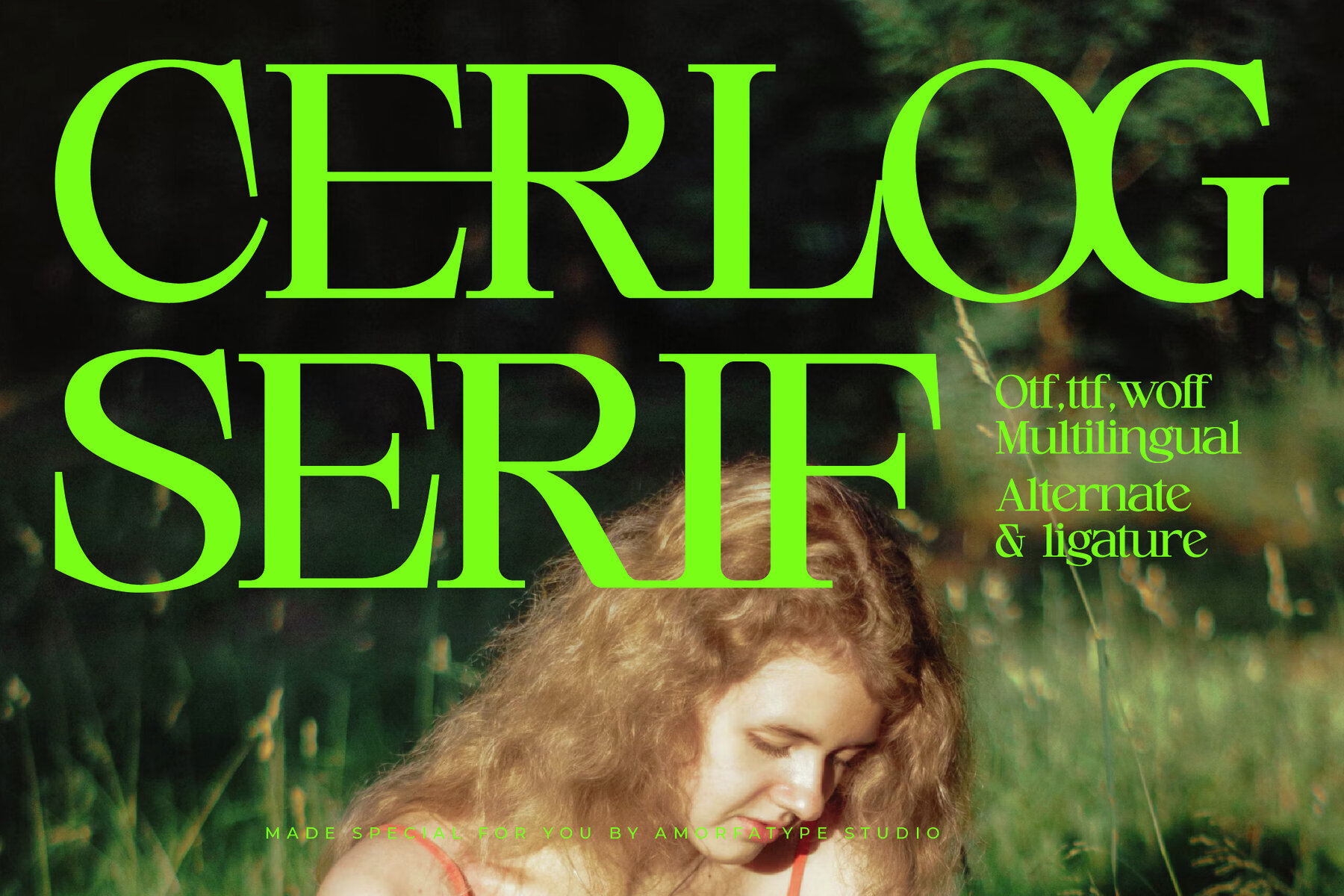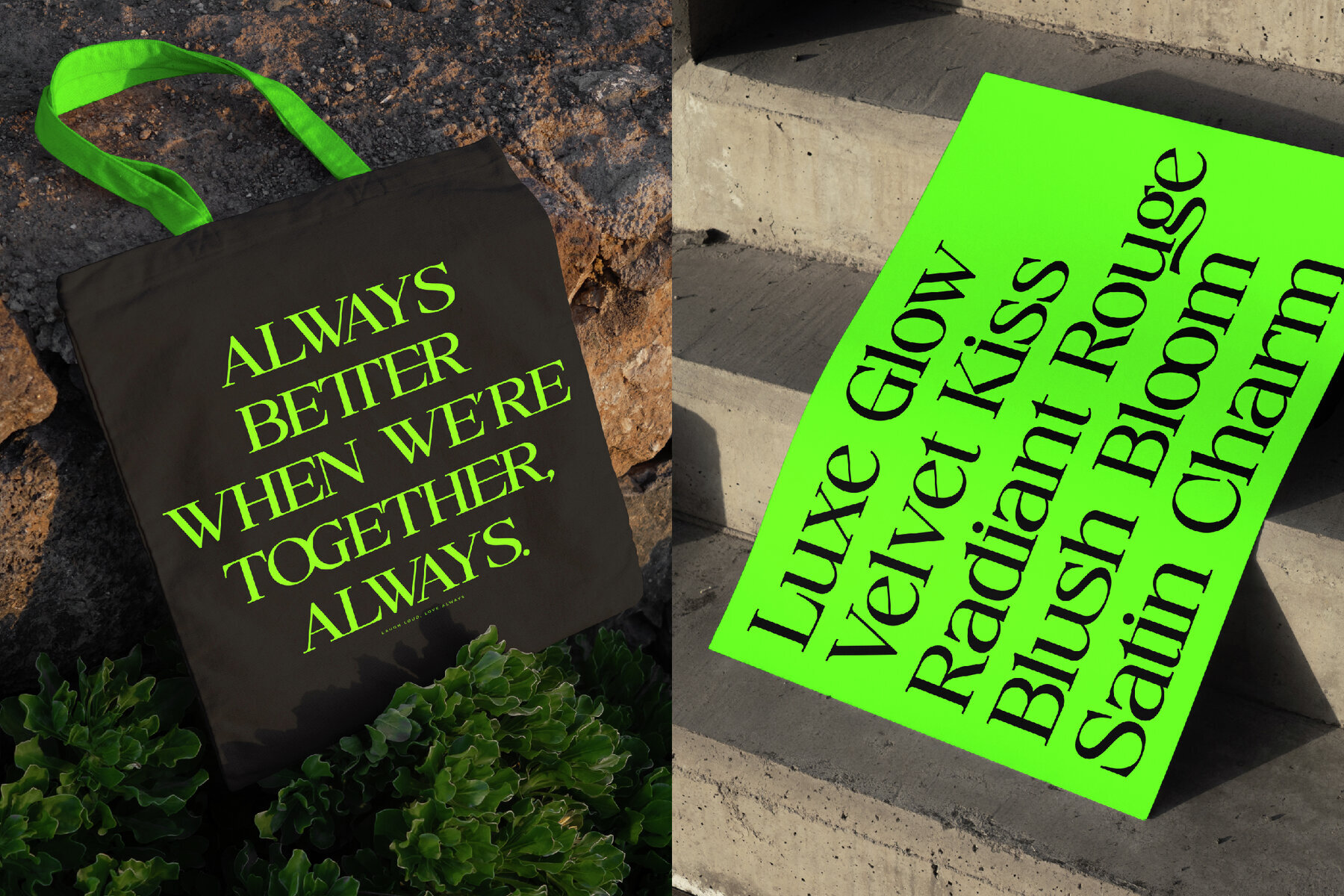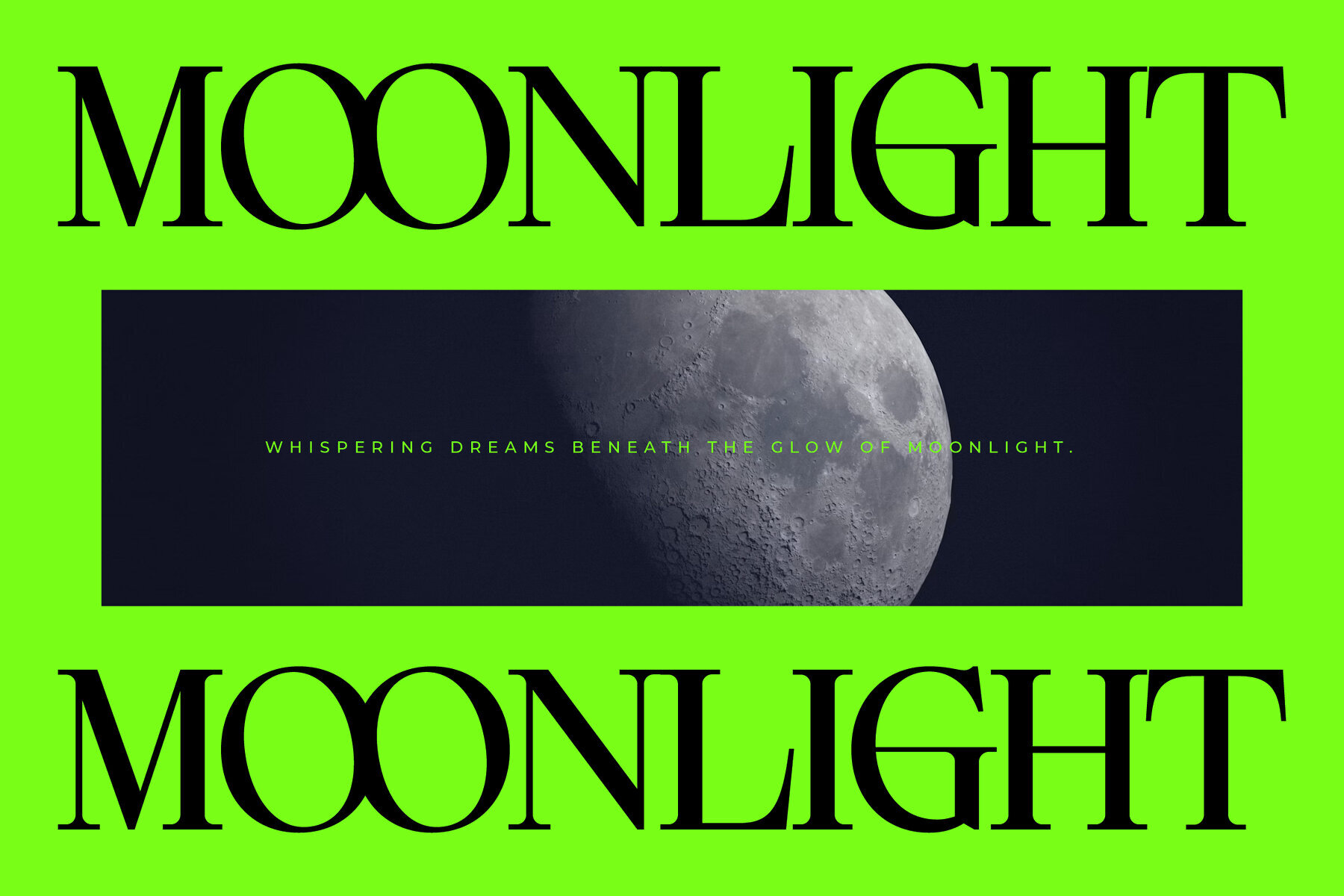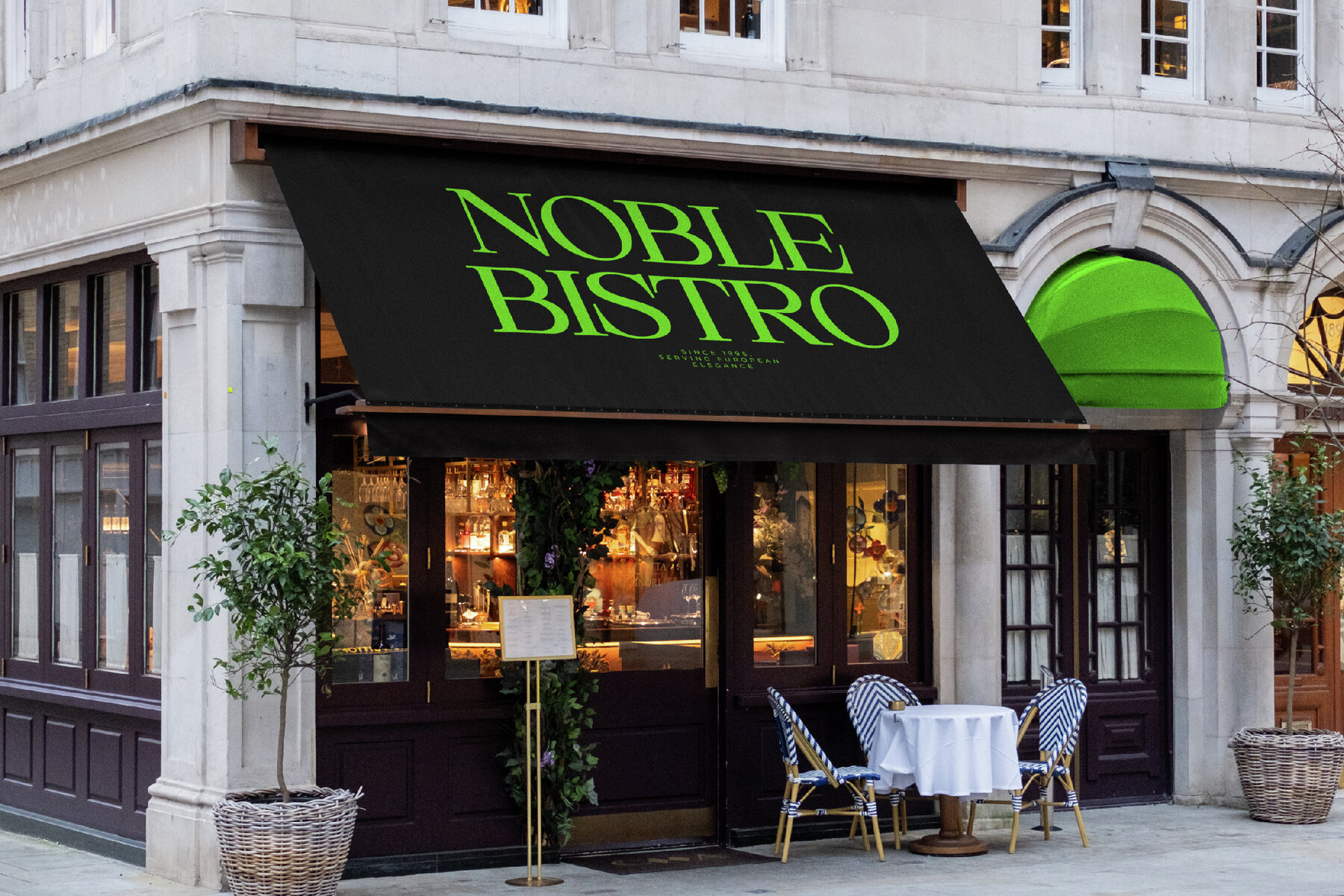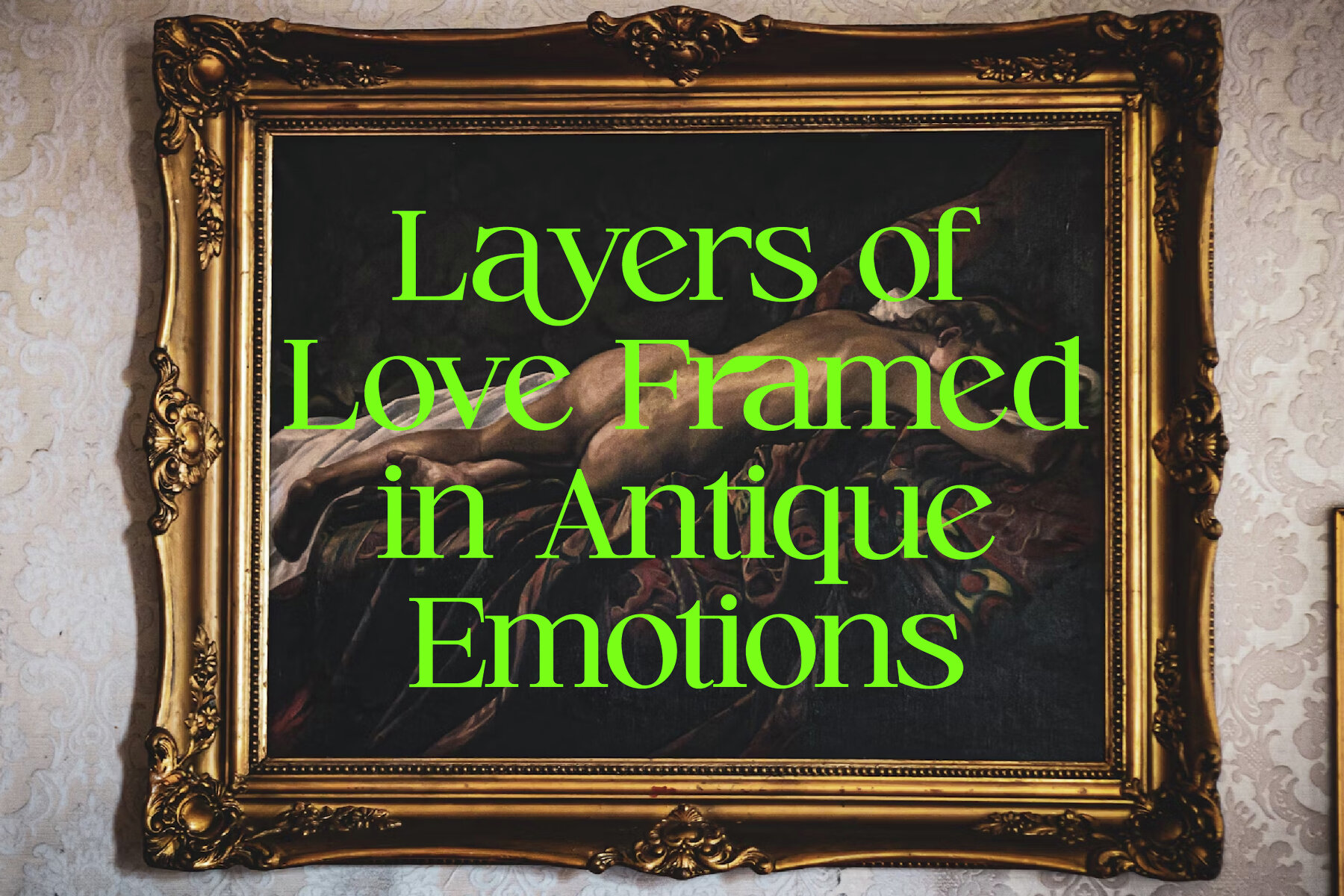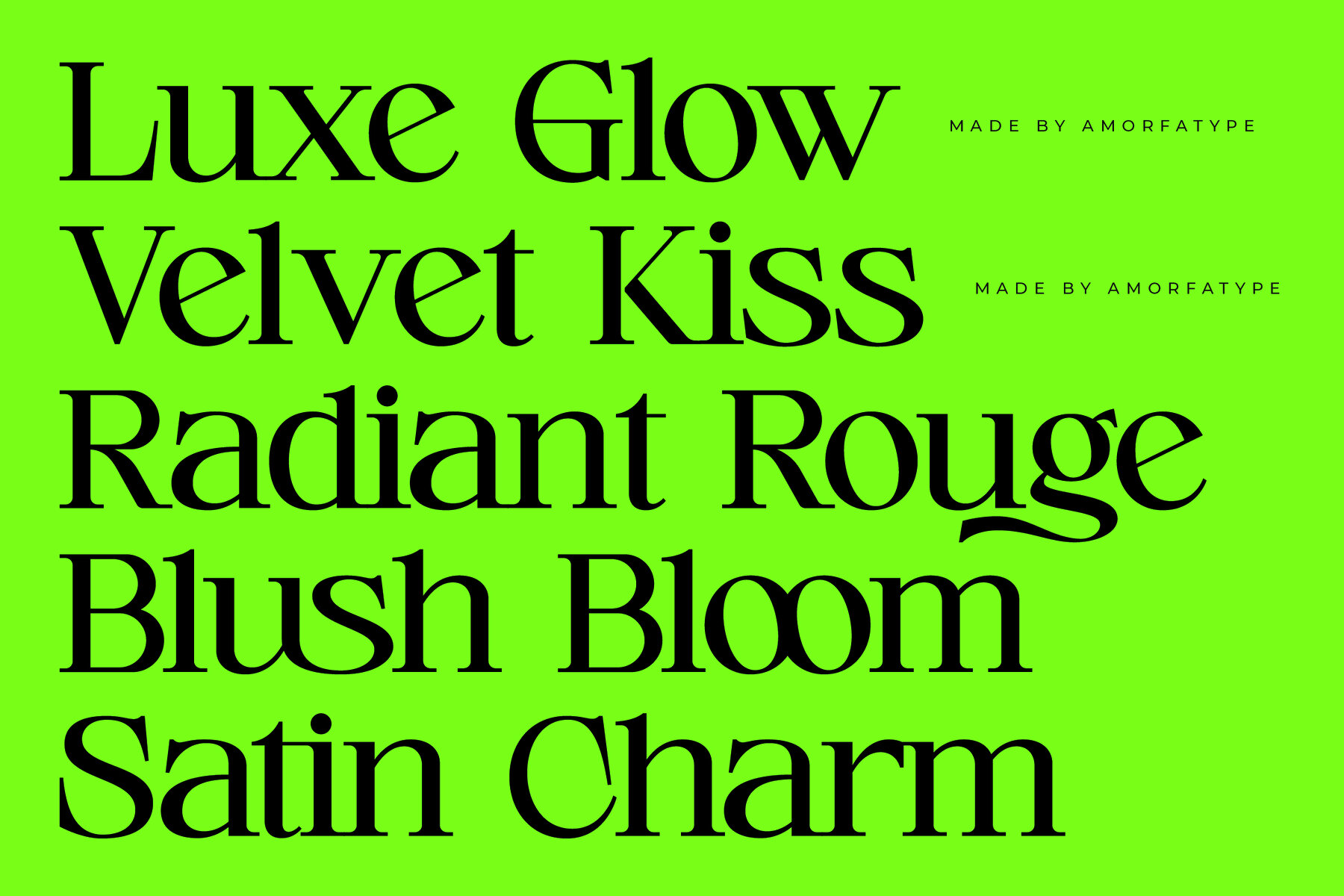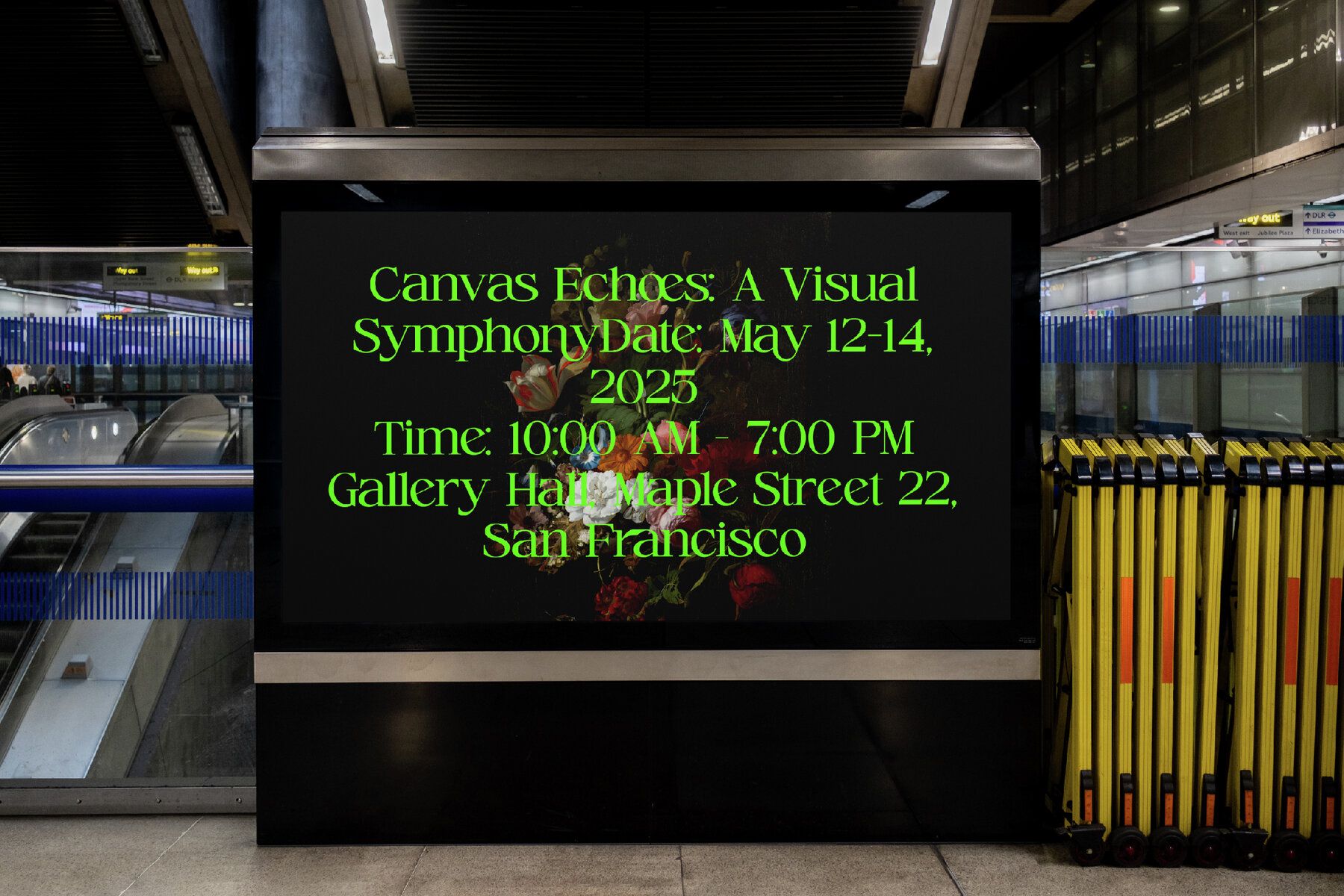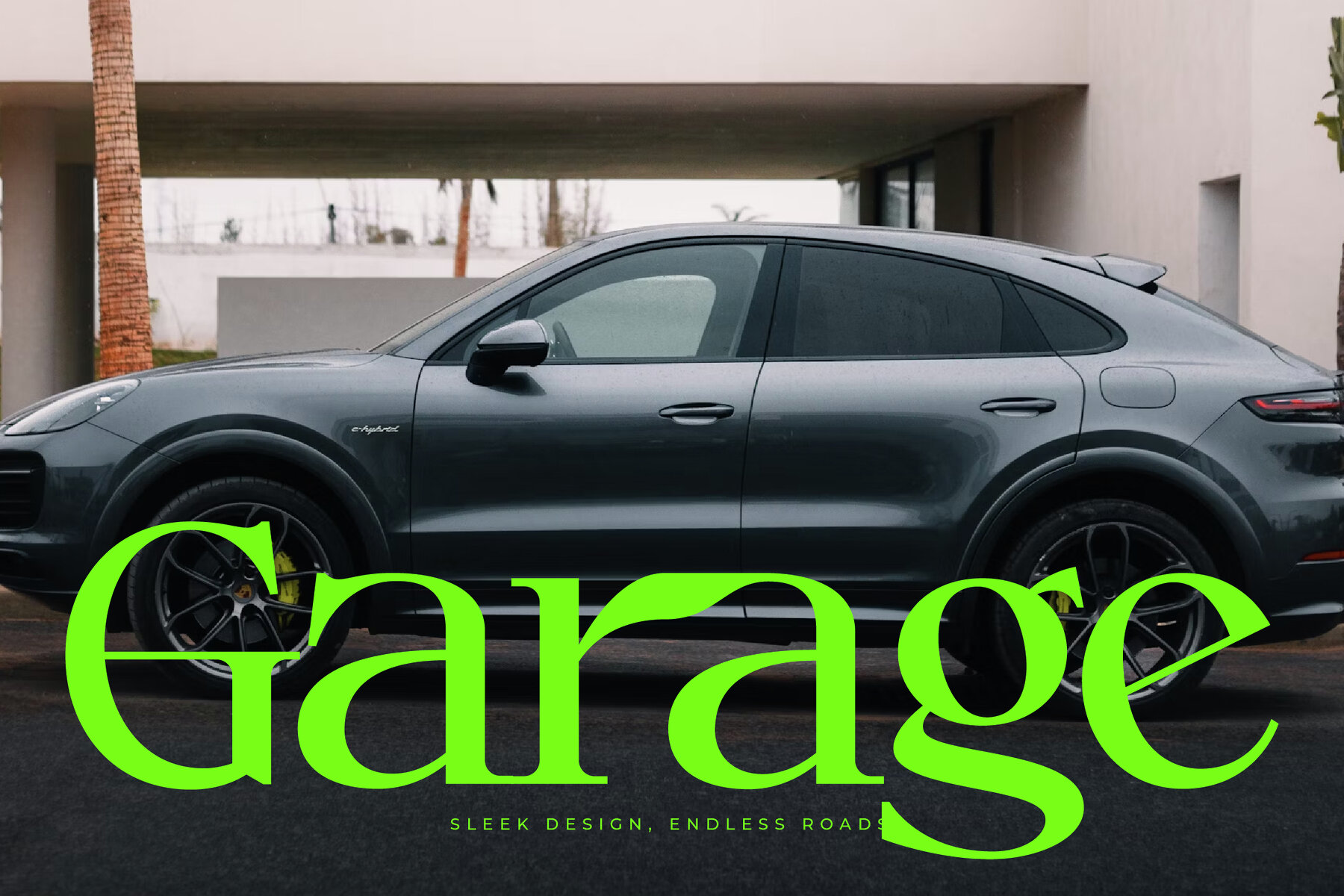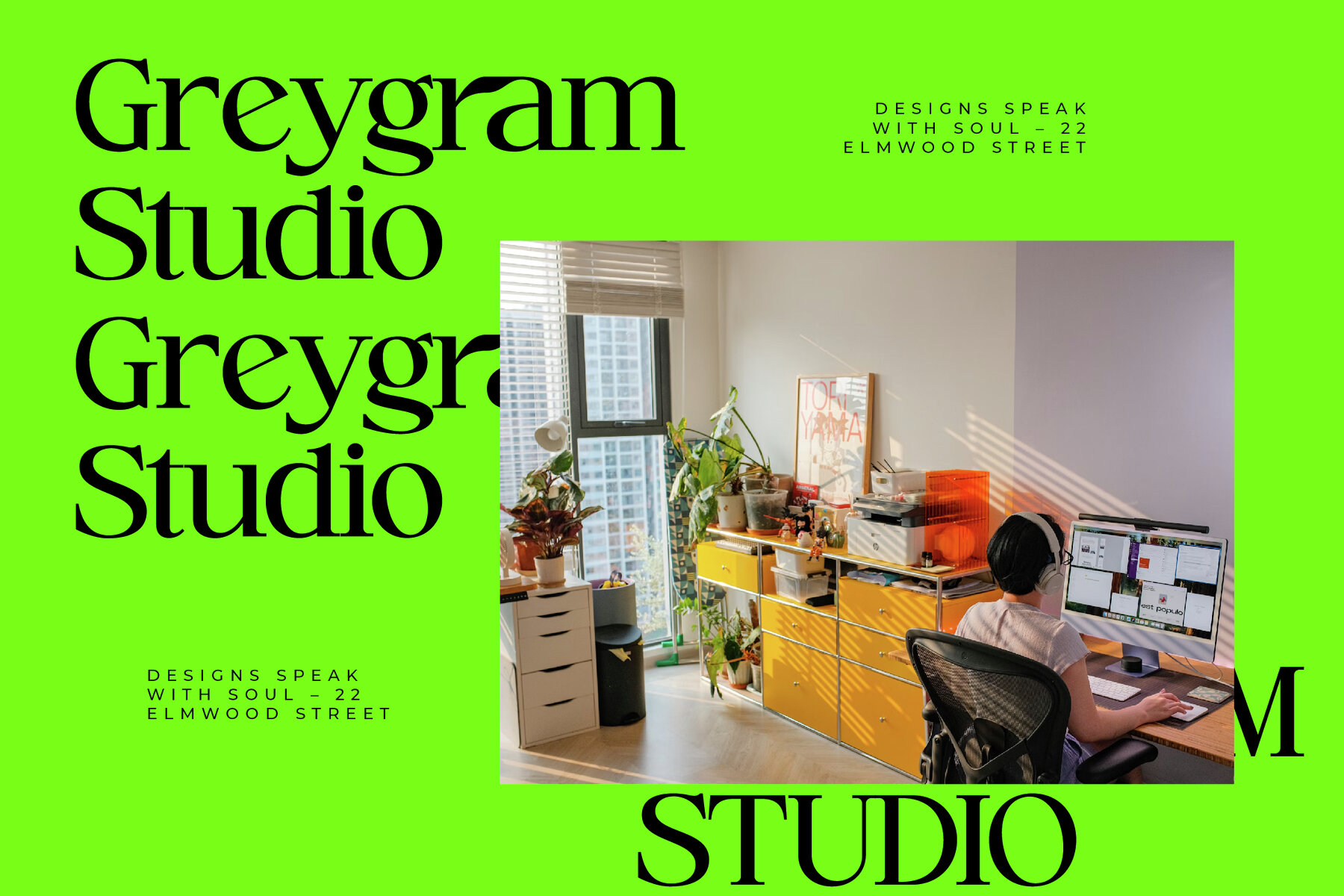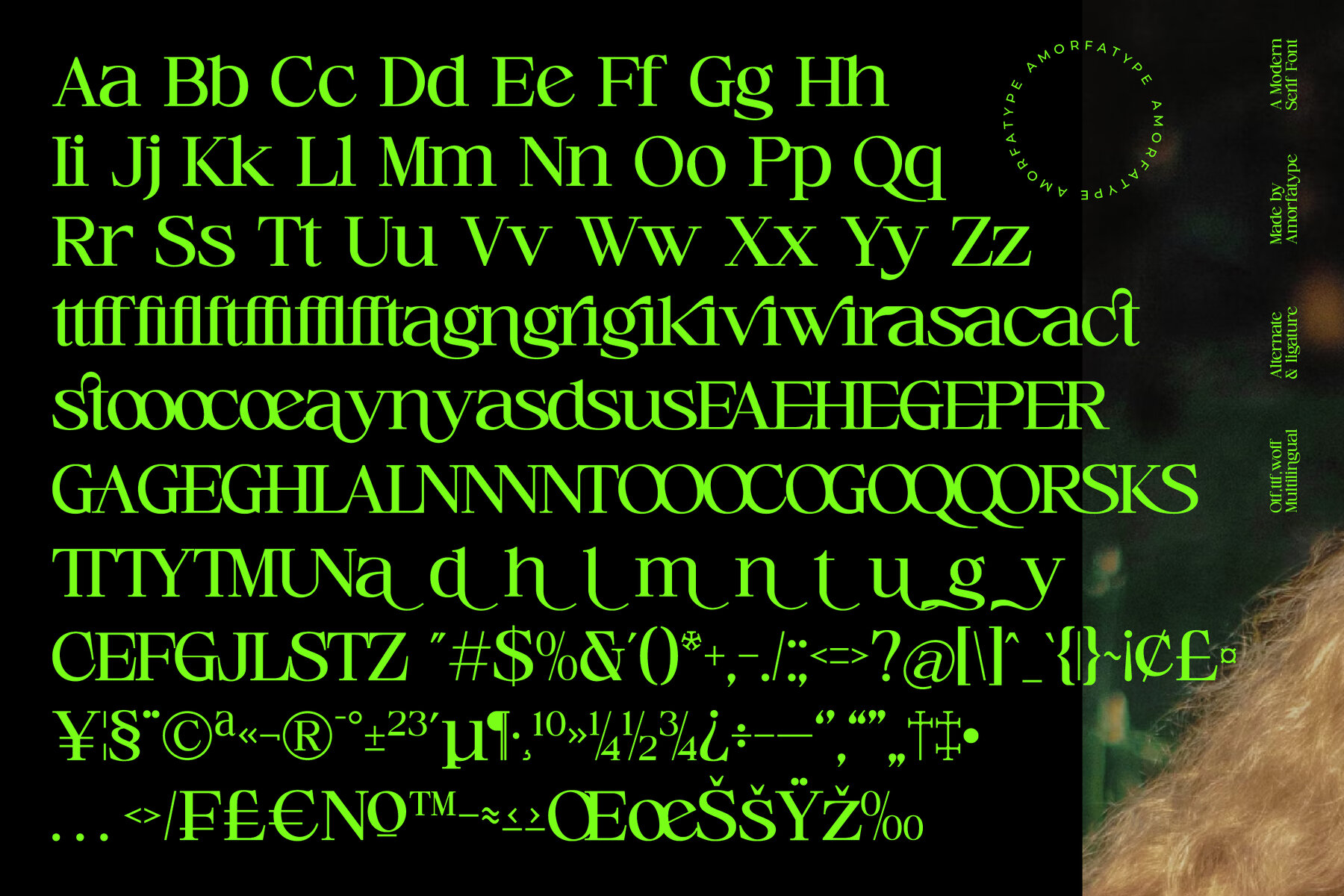
Cerlog Font
Cerlog – A Modern Serif Display Font by Amorfatype Cerlog is a sophisticated modern serif display font that masterfully combines refined tradition with contemporary boldness. With its elegant high-contrast strokes, sharp yet graceful serifs, and clean, structured forms, Cerlog brings a distinctive presence to any design. This font radiates confidence and luxury, making it a perfect fit for branding, editorial work, and modern visual identities. Crafted with versatility in mind, Cerlog performs beautifully across a range of design uses — from dramatic magazine headlines and stylish packaging to upscale logos and web interfaces. Each character is precisely designed to offer both clarity and character, blending timeless serif elegance with a sharp modern edge. Cerlog’s refined details and bold stature elevate your typography to new hei